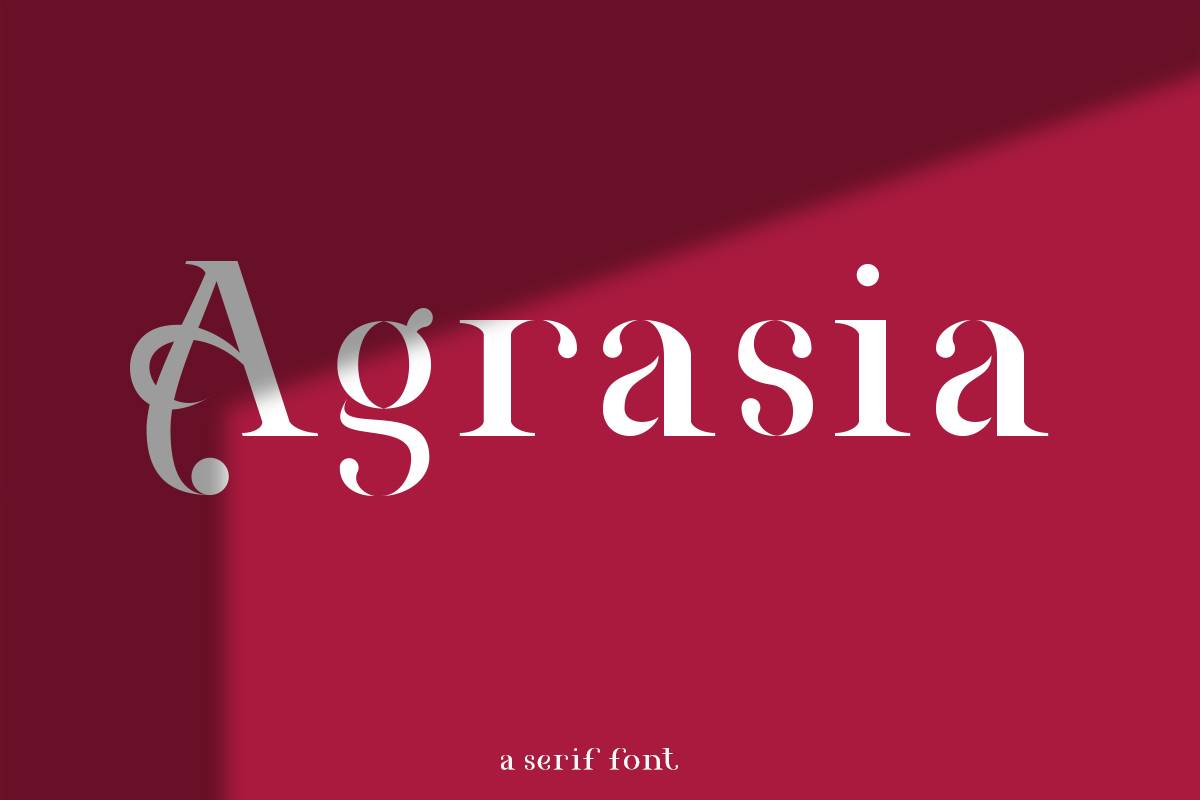
Agrasia Serif is a distinctive serif font that combines classic elegance with modern flair through its sharp, high-contrast strokes and unique, artistic letterforms. Its medium weight and slightly condensed width make it ideal for sophisticated headlines and branding that seek a refined yet contemporary look. Perfect for fashion, editorial, and luxury design projects, Agrasia Serif stands out by blending traditional serif charm with creative, eye-catching details.
Agrasia Serif Font
About Agrasia Serif Font
| Font family | Agrasia Serif Font |
| Designer | Muhammad Fathi Al Ghazi |